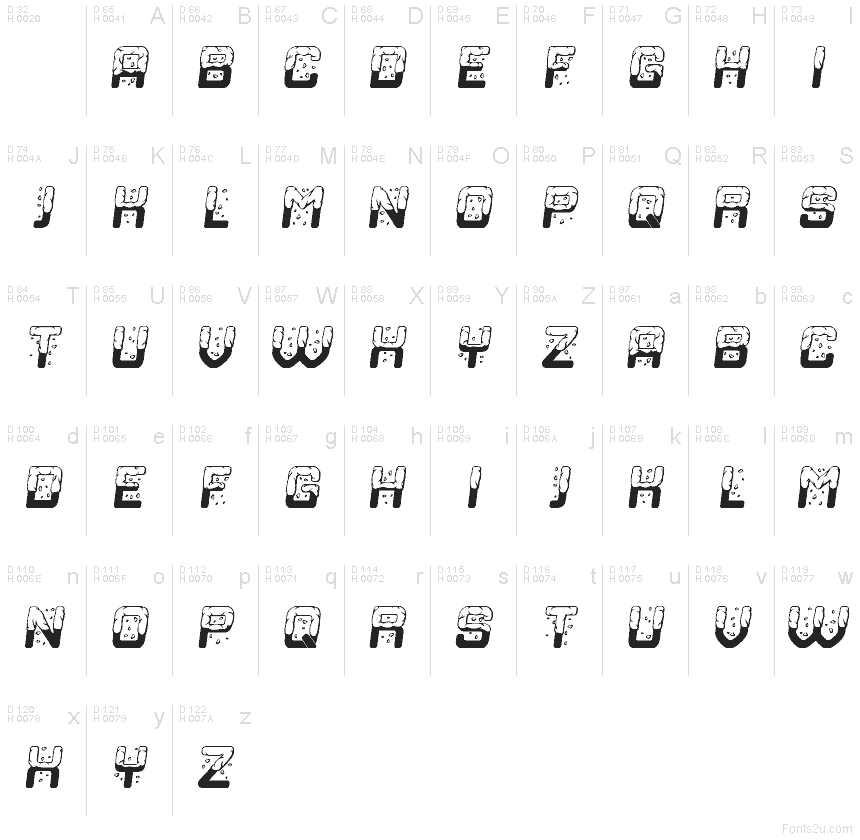
Snow Italic
Snow Italic font by Vladimir Nikolic is a free decorative display font from the Snow family. Thick, slanted letterforms wear pillowy caps of “ice,” with speckled flakes and inky shadows that make the shapes feel freshly packed and a little melty. It reads like winter graffiti—bold, playful, and instantly seasonal—so your message lands with a crisp, frosted punch.
Using Snow Italic, headlines snap to attention on holiday cards, winter festival posters, party invites, storefront signage, kids’ activity sheets, and seasonal social posts. This free font shines when set big, letting the snowy texture breathe; pair it with a clean sans for body copy to keep the scene readable and cheerful.